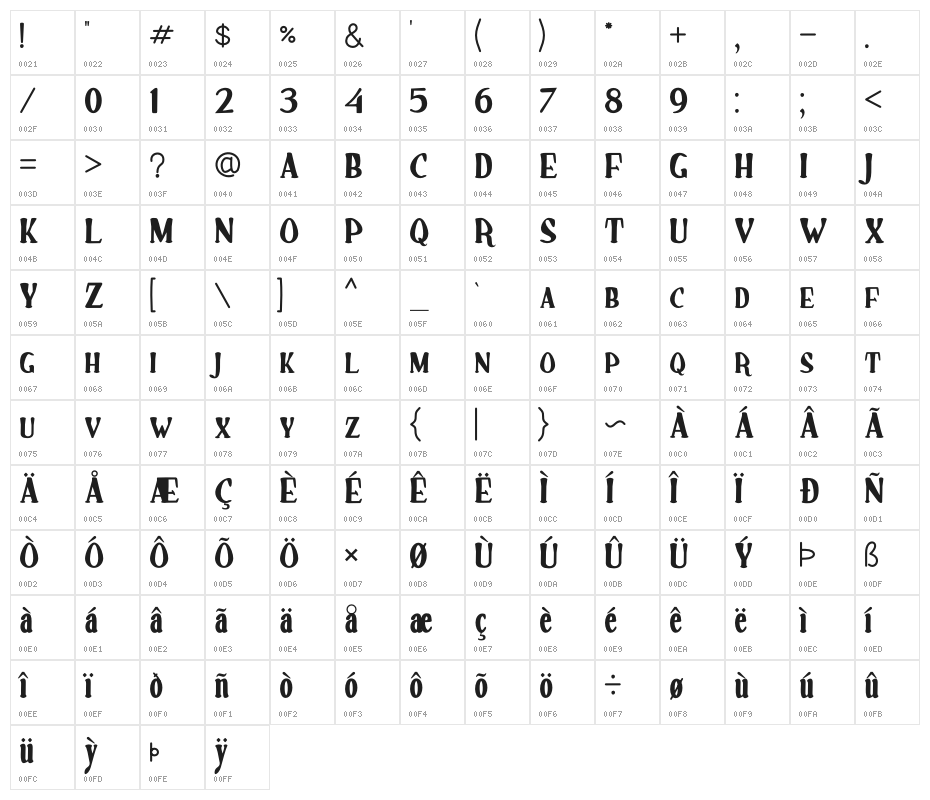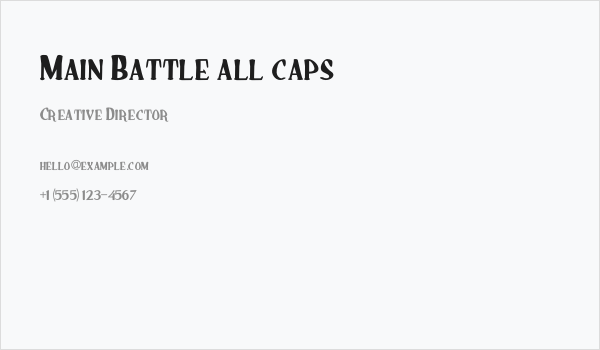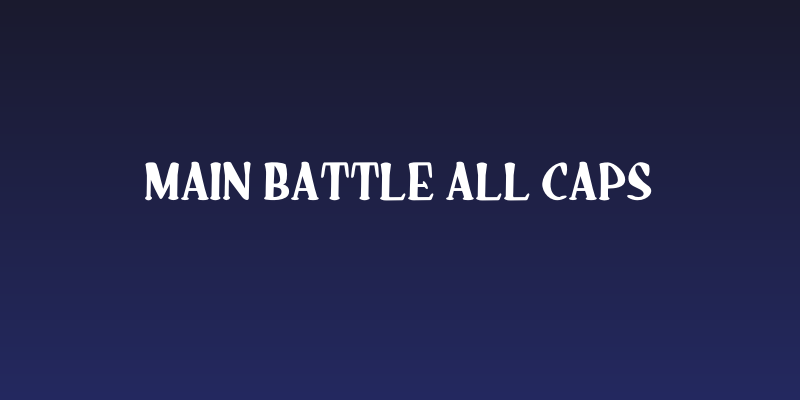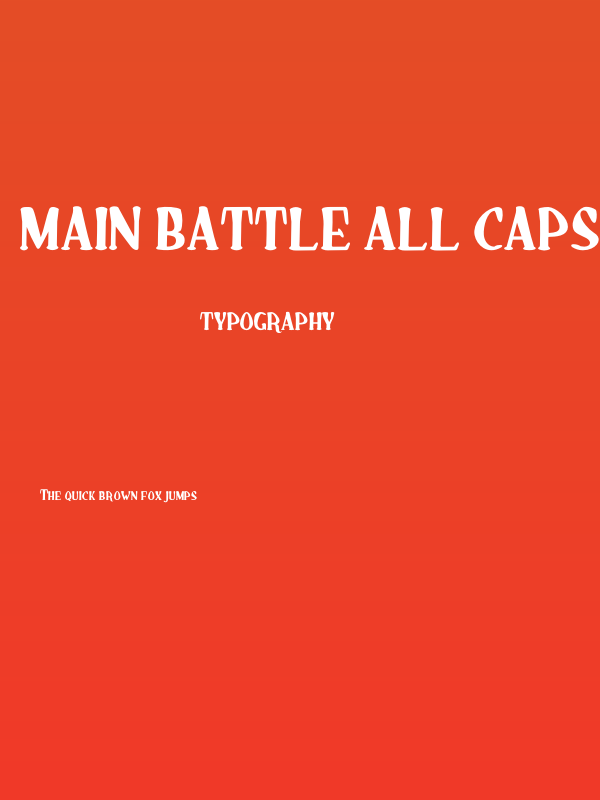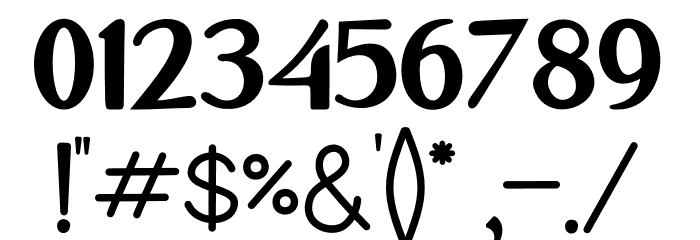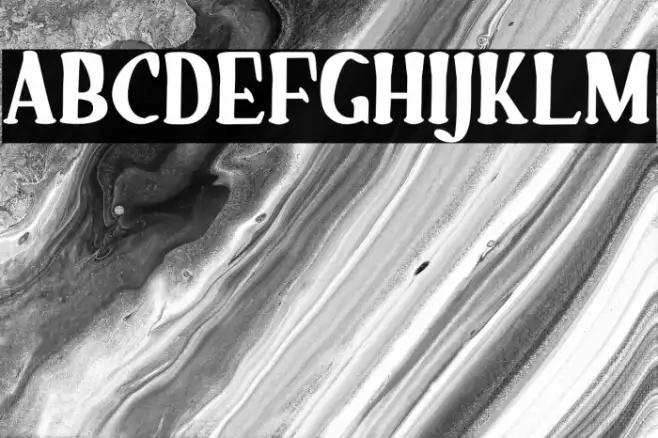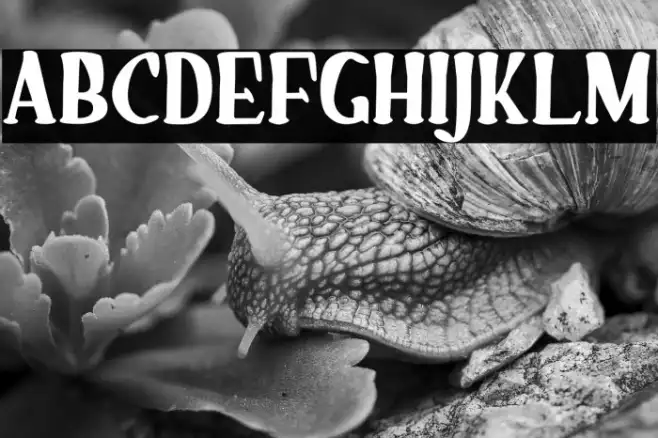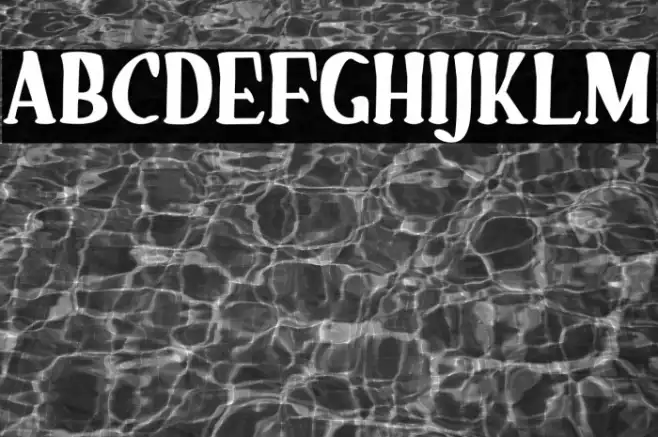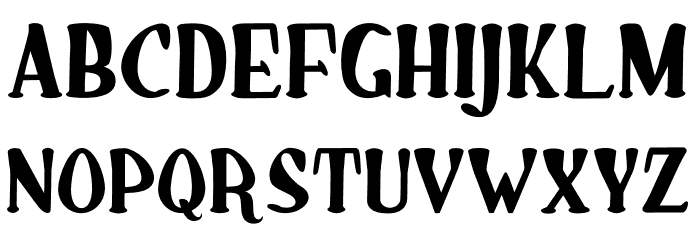
Main Battle all caps Font
Main Battle all caps Description
This font features bold, dynamic characters with a strong presence, making it ideal for attention-grabbing designs. The uppercase letters are crafted with a slight curvature, giving them a unique flair while maintaining readability. The numbers and special characters are consistent with the overall style, ensuring a cohesive look across all text elements. The font's bold strokes and moderate contrast make it suitable for impactful headlines and titles. Its decorative nature adds a touch of personality, making it perfect for creative projects that require a distinctive and memorable typeface.
| Proposed Projects | Ideal for posters, logos, branding, and any design needing a bold, memorable typeface. |